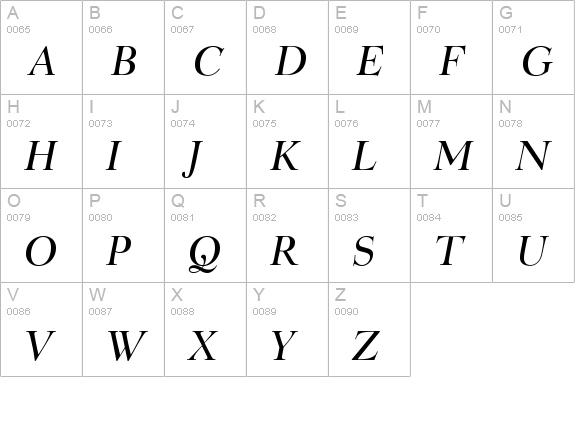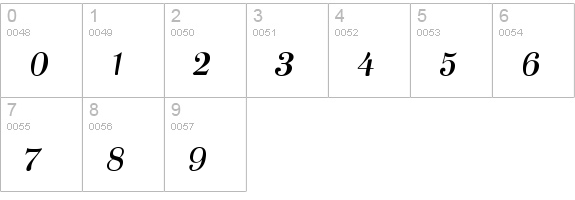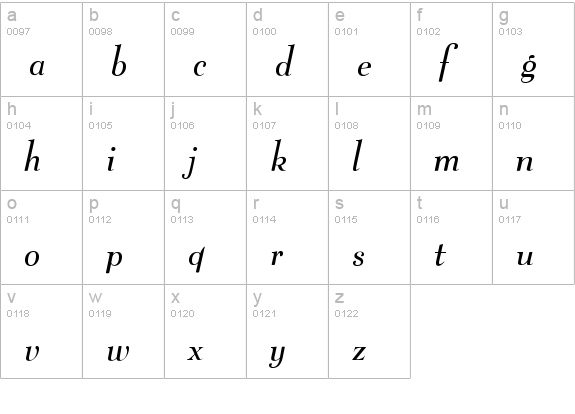
Belucian-DemiItalic is a stunning and elegant font that exudes sophistication and style. Its sleek and modern design makes it perfect for a wide range of design projects, from branding to editorial work. The italicized characters add a touch of flair and uniqueness to any text, making it stand out from the crowd. This font is not only visually appealing but also highly versatile, making it suitable for a variety of design applications. Whether you are creating a logo, a poster, a website, or any other design project, Belucian-DemiItalic is sure to make a statement. The best part? Belucian-DemiItalic is available for free download at FontsMarket.com. This means that you can easily access this beautiful font and use it in your projects without any cost. Don't miss out on the opportunity to elevate your designs with the timeless elegance of Belucian-DemiItalic. Download it today and see the difference it can make in your work.